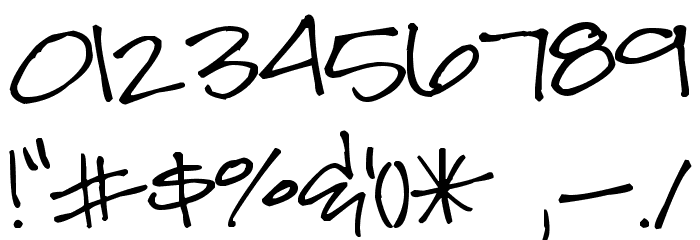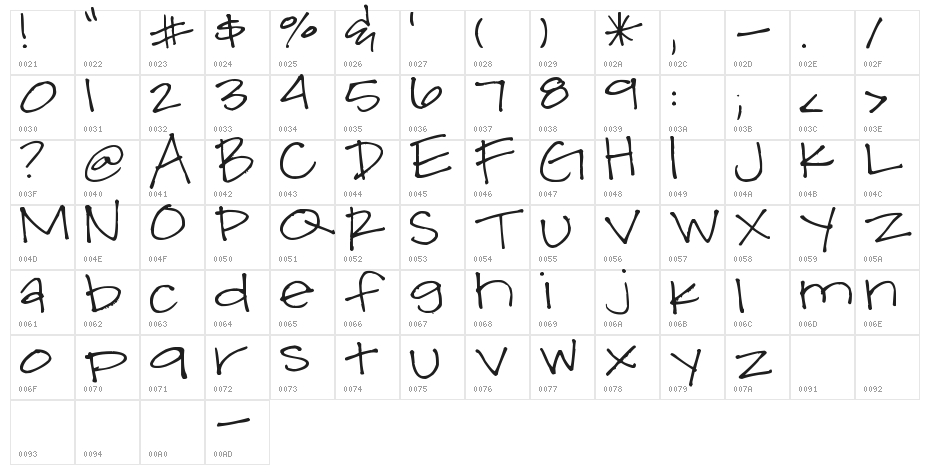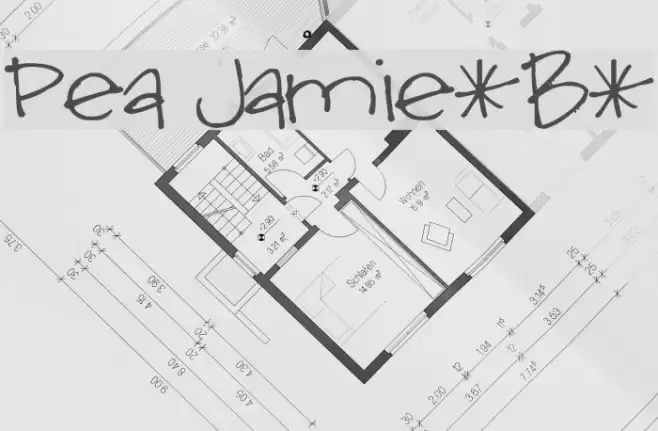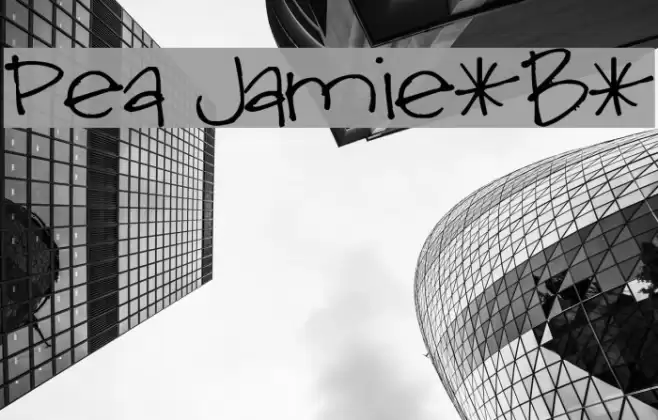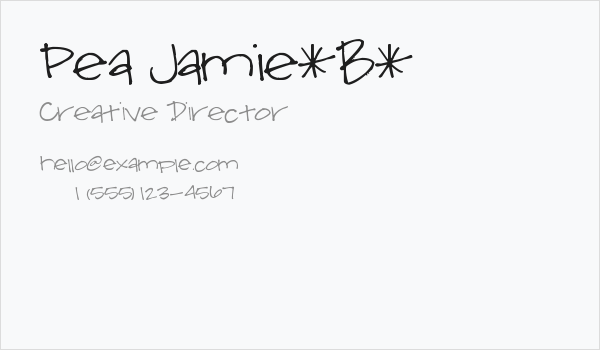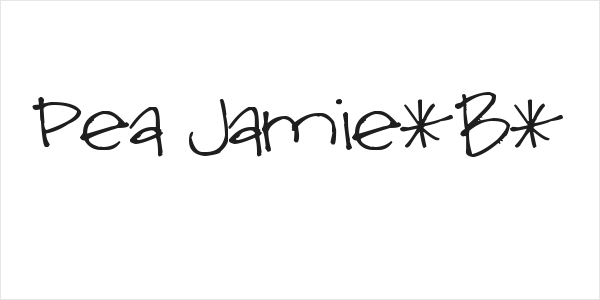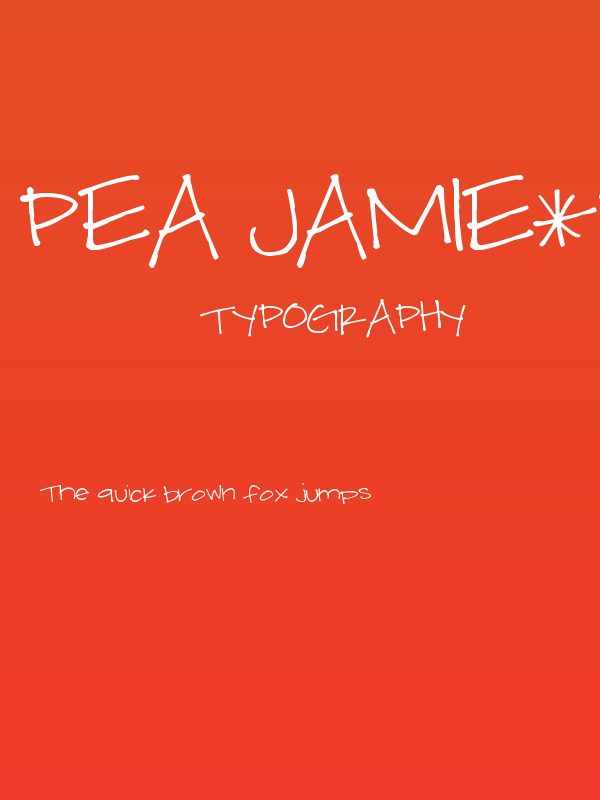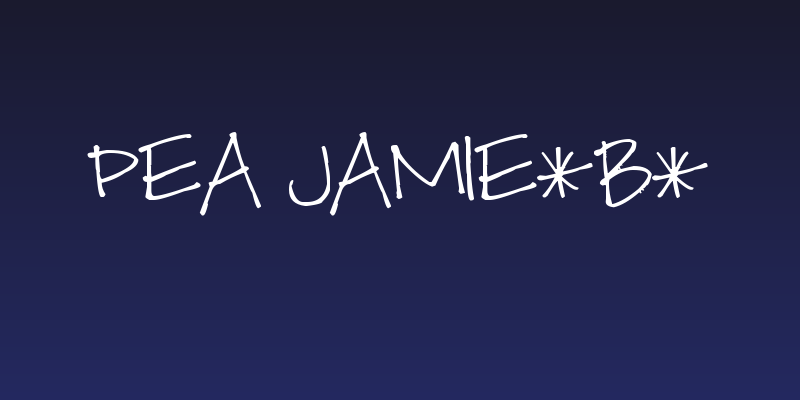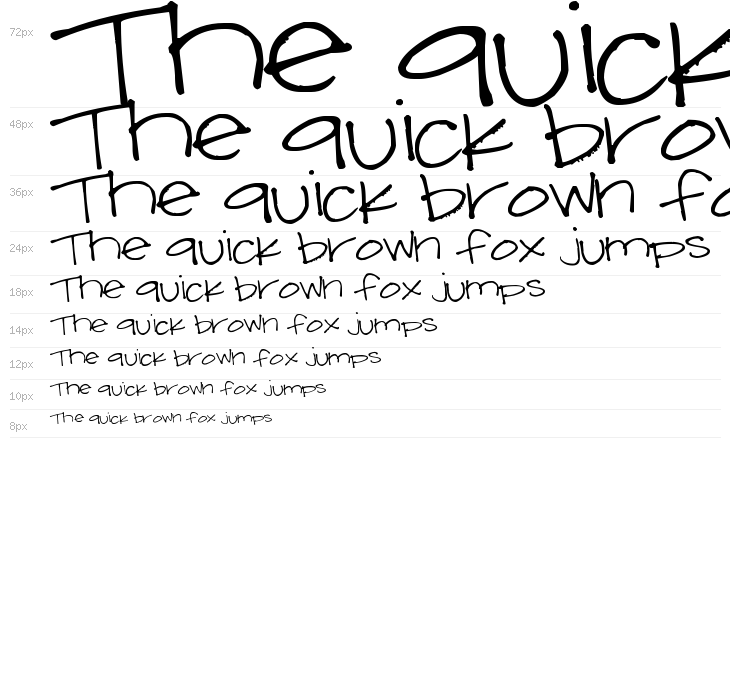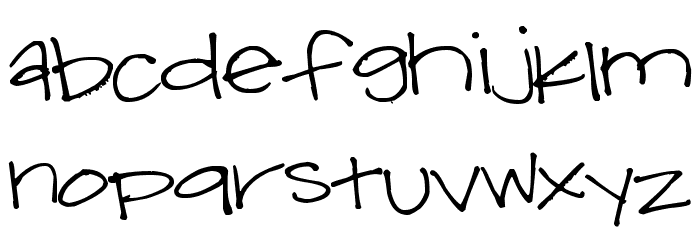
Pea Jamie*B* Font
Pea Jamie*B* Description
This font features a playful, handwritten style that exudes a casual and friendly vibe. The letters are slightly uneven, mimicking the natural flow of handwriting, which adds a personal touch to any text. The strokes are moderately thick, providing good readability while maintaining a relaxed appearance. The characters are well-spaced, ensuring clarity and legibility. This font includes a full set of uppercase and lowercase letters, numbers, and a variety of special characters, making it versatile for different uses.
| Proposed Projects | Ideal for personal notes, greeting cards, informal invitations, and creative projects that require a personal touch. |